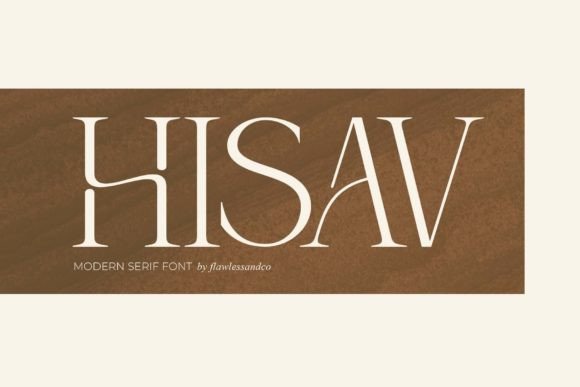
Introducing Hisav Font: The Epitome of Sophistication and Grace for Your Creative Endeavors
In the realm of digital expression, where words take shape and ideas materialize, there exists a font that embodies elegance, innovation, and timeless beauty - Hisav Font. A creation of Flawless And Co., Hisav is a modern serif font poised to elevate your projects to new heights of style and sophistication.
Step into a world of refined typography, where every letter is a masterpiece, meticulously crafted to exude luxury, elegance, and a touch of femininity. Hisav's carefully designed curves and sharp, clean edges dance harmoniously, creating a visually captivating aesthetic that demands attention.
With Hisav as your creative companion, you'll effortlessly craft designs that ooze sophistication and allure. Its versatility knows no bounds, making it the perfect choice for a myriad of projects, from branding and web design to social media posts and print materials. Picture your designs adorned with Hisav's timeless charm, exuding an air of professionalism and leaving a lasting impression on your audience.